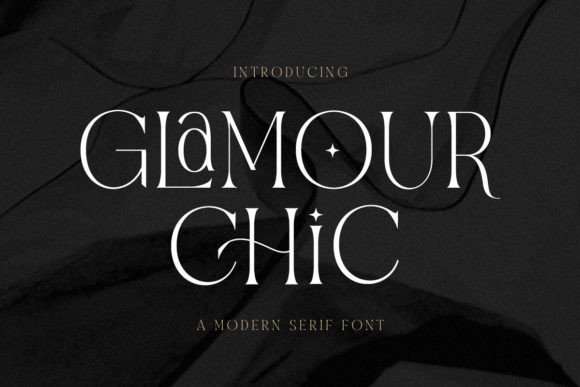
Glamour Chic Font: Elevate Your Designs with Timeless Sophistication
In the world of typography, fonts play a crucial role in conveying the tone and personality of a brand or design. When it comes to creating a lasting impression, a well-chosen font can make all the difference. Introducing Glamour Chic Font, a stylish and chic serif font that adds a touch of sophistication to your designs. With its refined serifs and elegant letterforms, this font embodies the timeless beauty of classic serif styles.
The Essence of Glamour Chic Font
Glamour Chic Font is a masterfully crafted serif font that exudes elegance and refinement. Its classic design is reminiscent of traditional serif fonts, yet its unique flair and modern twist make it perfect for contemporary designs. The font’s refined serifs and elegant letterforms create a sense of luxury and sophistication, making it an ideal choice for high-end branding, websites, and other designs where a touch of class is desired.
Key Features of Glamour Chic Font
- Refined Serifs: The font’s serifs are carefully crafted to add a touch of elegance and sophistication to your designs.
- Elegant Letterforms: Each letterform is designed to convey a sense of luxury and refinement, making it perfect for high-end branding and designs.
- Timeless Beauty: The font’s classic design ensures that it will remain timeless and relevant for years to come.
- Versatile: Glamour Chic Font is suitable for a wide range of designs, from branding and websites to magazines and packaging.
Uses of Glamour Chic Font
Glamour Chic Font is a versatile font that can be used in a variety of designs, including:
- Branding: Create a lasting impression with a sophisticated brand identity that exudes elegance and refinement.
- Websites: Add a touch of class to your website with a font that is both elegant and readable.
- Magazines and Journals: Use Glamour Chic Font to add a touch of sophistication to your publication.
- Packaging: Create luxurious packaging that stands out from the crowd with a font that exudes elegance and refinement.
Benefits of Using Glamour Chic Font
Using Glamour Chic Font in your designs offers a range of benefits, including:
- Increased Sophistication: Add a touch of elegance and refinement to your designs.
- Improved Readability: The font’s clear and elegant letterforms ensure that your text is easy to read.
- Timeless Appeal: The font’s classic design ensures that it will remain timeless and relevant for years to come.
- Versatility: Use Glamour Chic Font in a wide range of designs, from branding and websites to magazines and packaging.
Tips for Using Glamour Chic Font
To get the most out of Glamour Chic Font, follow these tips:
- Use it sparingly: Use the font sparingly to add a touch of elegance and sophistication to your designs.
- Pair it with other fonts: Pair Glamour Chic Font with other fonts to create a unique and visually appealing design.
- Experiment with different sizes: Experiment with different font sizes to create visual interest and hierarchy in your design.
In conclusion, Glamour Chic Font is a stylish and chic serif font that adds a touch of sophistication to your designs. With its refined serifs and elegant letterforms, this font embodies the timeless beauty of classic serif styles. Perfect for branding, websites, and other contemporary designs, Glamour Chic Font is sure to bring a touch of sophistication and class to any project.
- What is Glamour Chic Font? Glamour Chic Font is a stylish and chic serif font that adds a touch of sophistication to your designs.
- What is Glamour Chic Font used for? Glamour Chic Font is suitable for a wide range of designs, from branding and websites to magazines and packaging.
- Is Glamour Chic Font easy to read? Yes, Glamour Chic Font is designed to be clear and readable, making it perfect for body text and headlines.